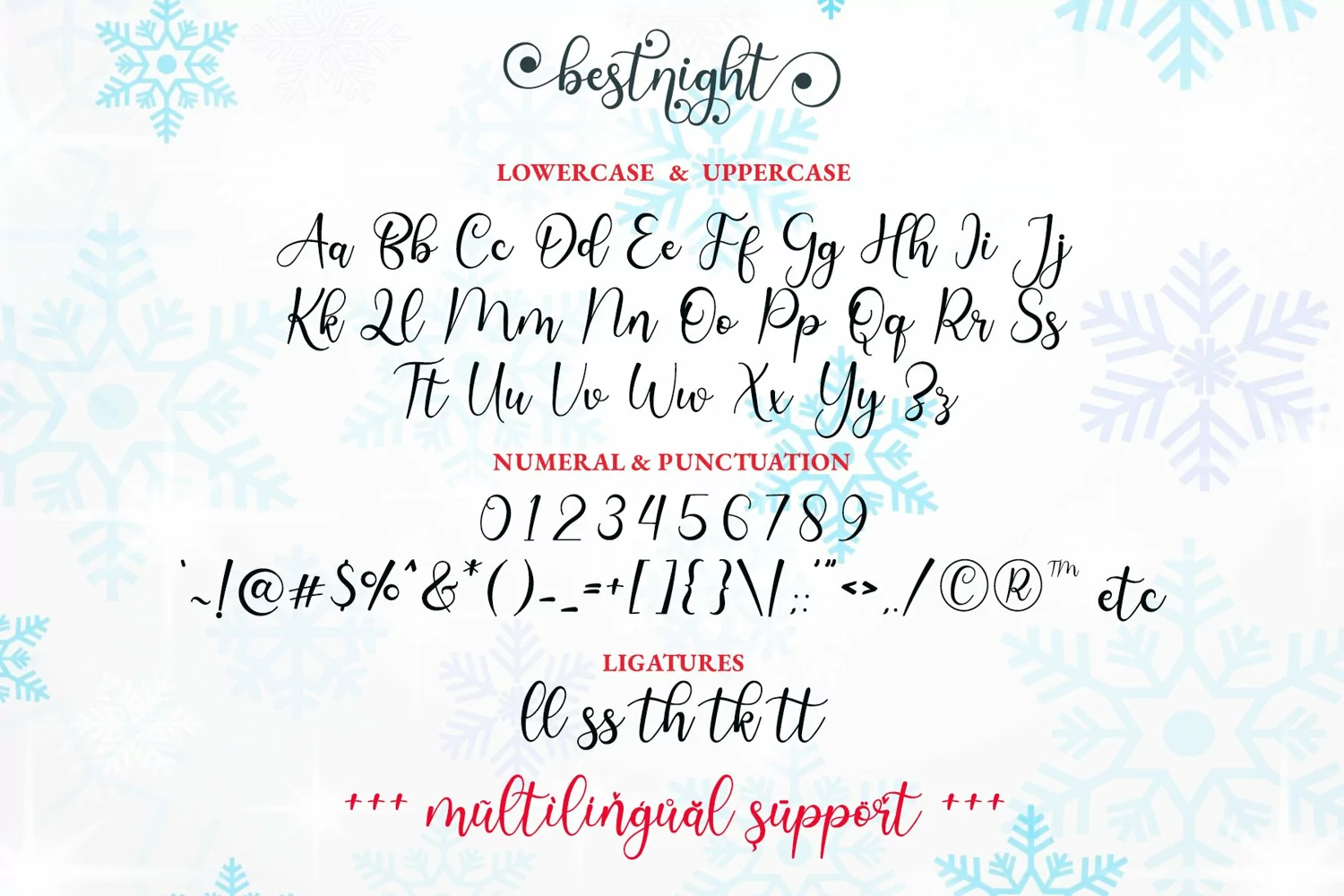
Bestnight is modern and charming calligraphy script. It looks classy, elegant, modern and casual in the same time.
Bestnight is such the perfect font for any kind of your project, such as advertisements, branding, graphic design, quotes, wedding design, logo for online or offline business, photography, and others. Make your design look more beautiful!
+Tons of Glyphs (includes PUA-Encoded alternates)
+Multilingual glyphs.